Introduction to Example of TP Font Usage: “Book Titles Part 2”
Type Project font will be introduced based on examples of usage in each medium, including packages, books, websites, and advertisements.
I would like to introduce books in which *TP Mincho is used altogether.
*Including some adjusted characters.
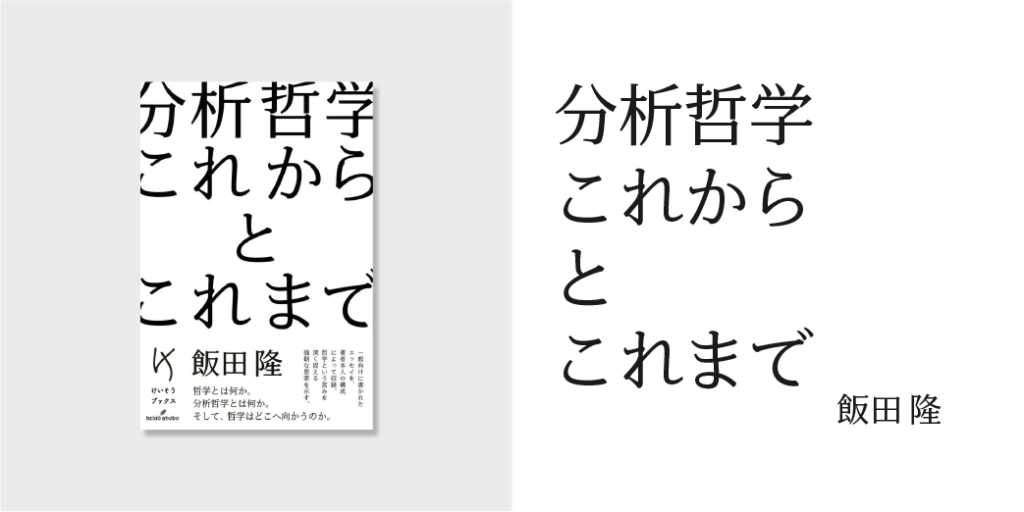
“Analytic Philosophy: Future and Past”
Author: Takashi Iida
Publisher: Keiso Shobo
“Modern and Strong Mincho Typeface”
TP Mincho Low Contrast is used for the title, subtitle, name of author, etc. over the whole surface of the essay collection on philosophy with an easy-to-understand introduction and explanation.
It has a large and impressive book title that jumps out from the cover, and practical-minded, pleasant design with characters only constituent in black and white, matching the modern and strong TP Mincho Low Contrast very well.
Title: TP Mincho Low Contrast R
Name of Author: TP Mincho Low Contrast R
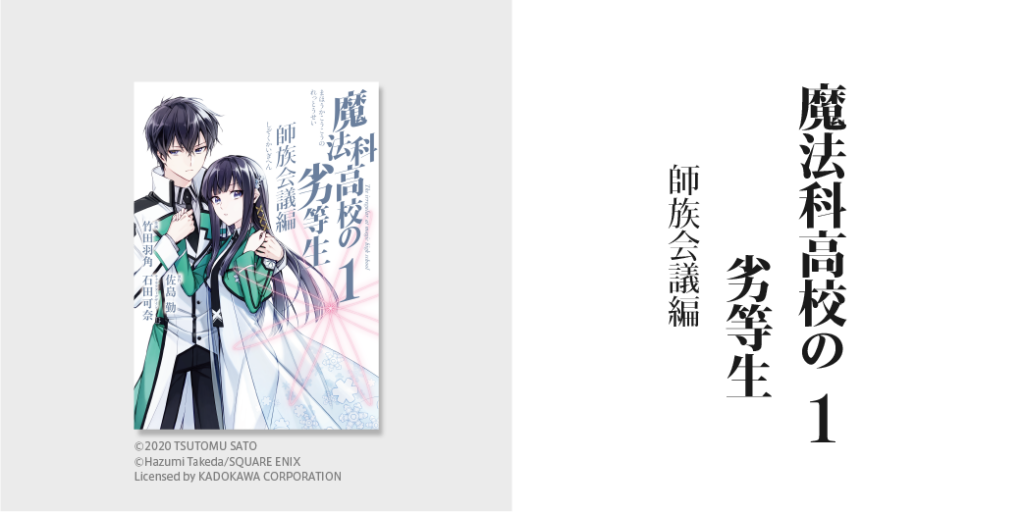
“The Irregular At Magic High School: Master Clans Council Arc, Part I”
Original Author: Tsutomu Sato
Character Design: Kana Ishida
Drawing: Hazumi Takeda
Publisher: SQUARE ENIX
“Characteristic Shape of Corner Uroko”
TP Mincho High Contrast is used for the title, subtitle, and volume number of the comic version of a popular light novel.
The title is impressive and sharp with a variation in character size and diagonally deformed characters. With a simple shape, the characteristic corner uroko, etc., TP Mincho is also appropriate for usage in which deformation is applied.
Title: TP Mincho High Contrast H
Subtitle: TP Mincho High Contrast R
Volume Number: TP Mincho High Contrast B
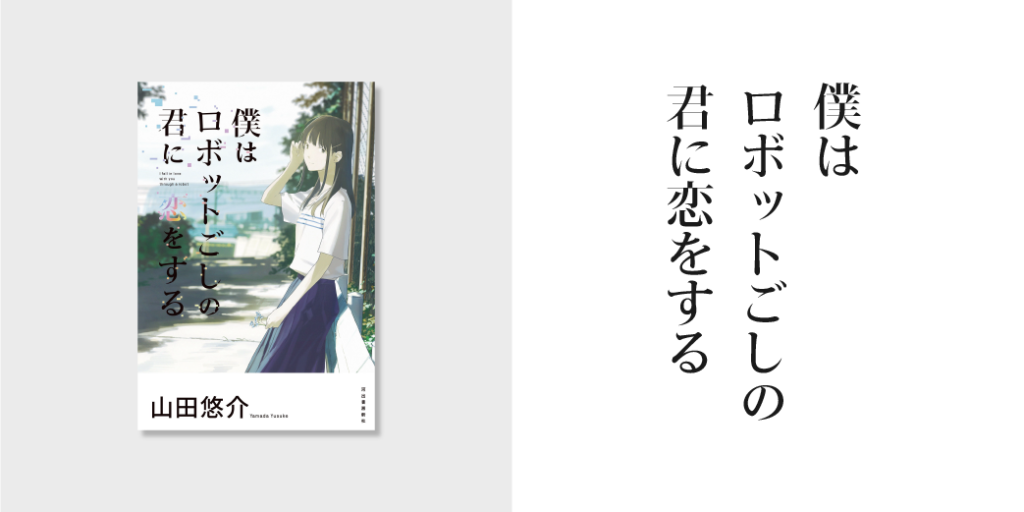
“I Fall in Love with You Through a Robot“
Author: Yusuke Yamada
Publisher: Kawade Shobo Shinsha
“Mincho Typeface with a Charm in Simple Design”
TP Mincho High Contrast is used for the title of this novel set in the near future along with a design that gives an impression of digital block noise.
I think that the title that includes the contradictory words of “robot” and “love” in a compatible combination with TP Mincho, conveying the charm of Mincho typeface in not becoming too inorganic in simple design, assuming usage in a digital environment.
Title: TP Mincho High Contrast M